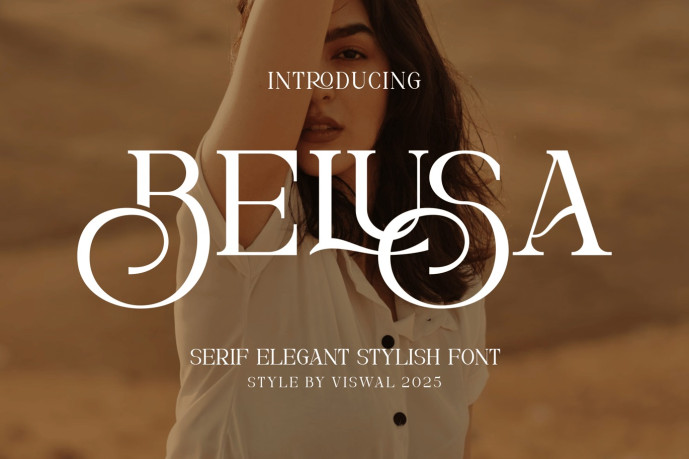
Belusa Font
Designer: Viswal
Belusa Font a modern logo font. It can easily convey your message effectively in your design. The font is suitable for logos, labels, badges, brands, magazines, posters, titles, concerts, covers, and more. Our fonts feature uppercase and lowercase letters, numbers, punctuation, and open type. For stunning designs, you can combine it with other complementary fonts.